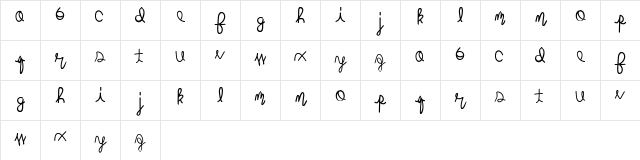
mightyroping Regular Free Font
mightyroping Regular
Foundry: xerographer.com
Designer: max infeld
Design Context for mightyroping
mightyroping is a composed and adaptable typeface that performs quietly and consistently across a wide range of design contexts.